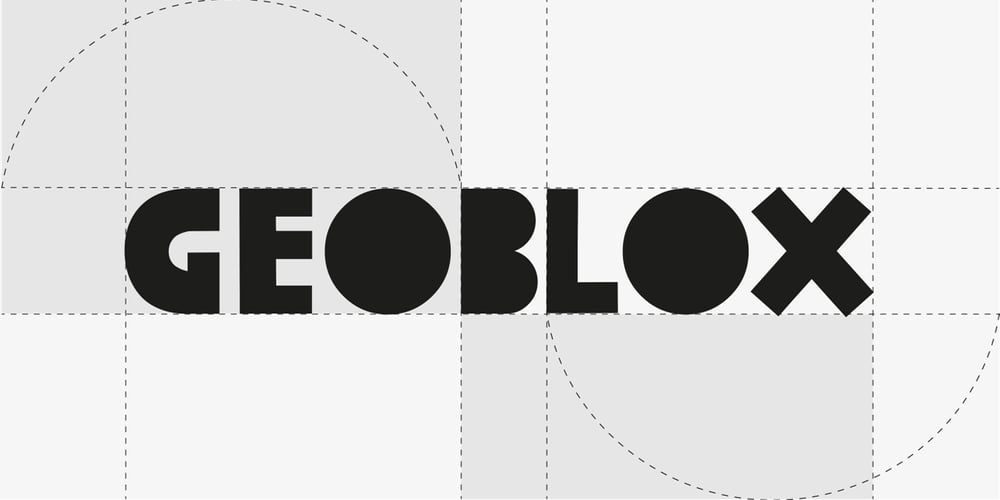
Geoblox
Geoblox font
Geoblox Font Family was designed by Danielle Warne and published by Warnetype. Geoblox contains 1 styles and family package options. A geometric display font contains upper & lowercase characters, all punctuation and numerals. Fun and blocky, it has a contemporary but playful feel.